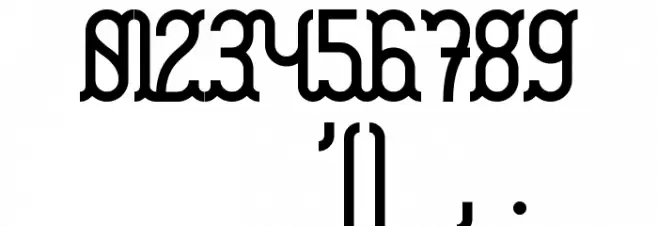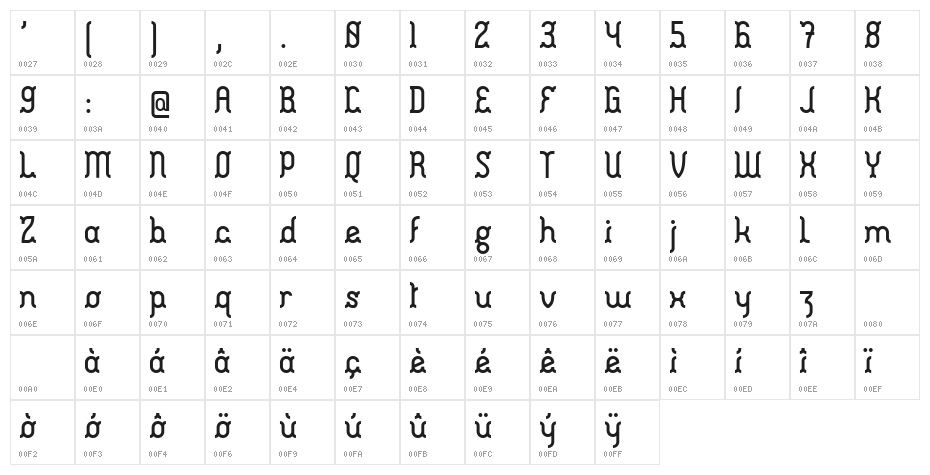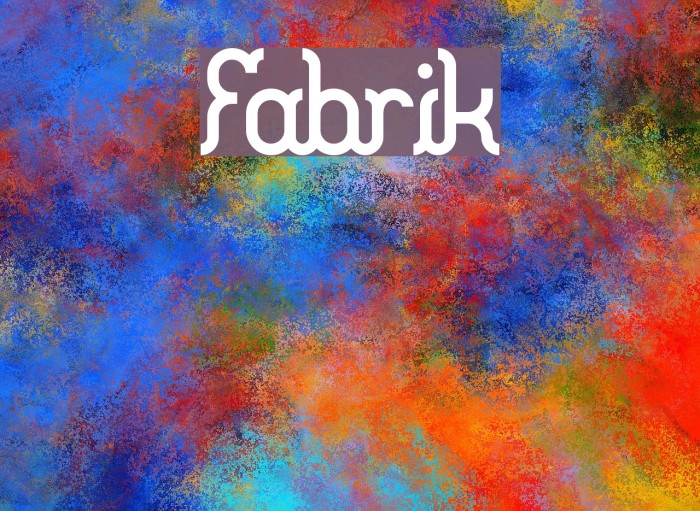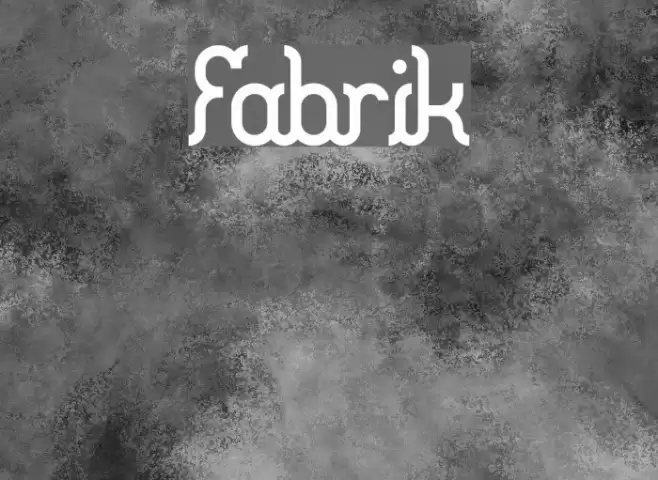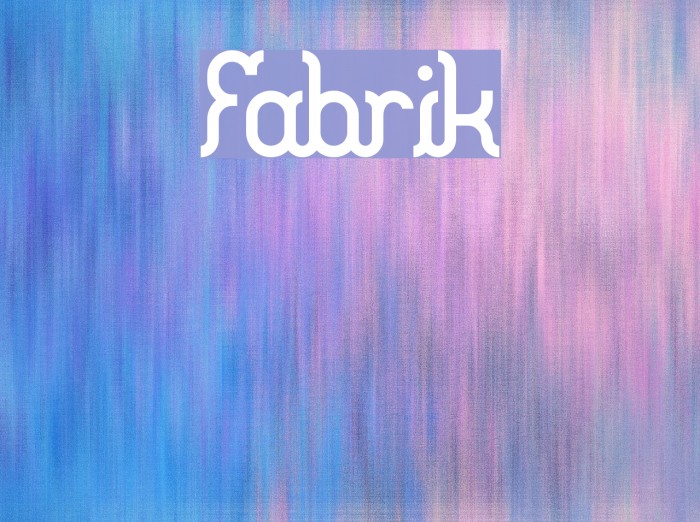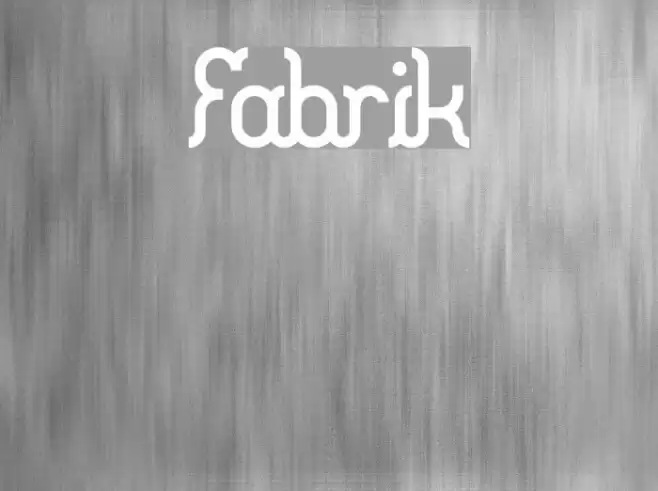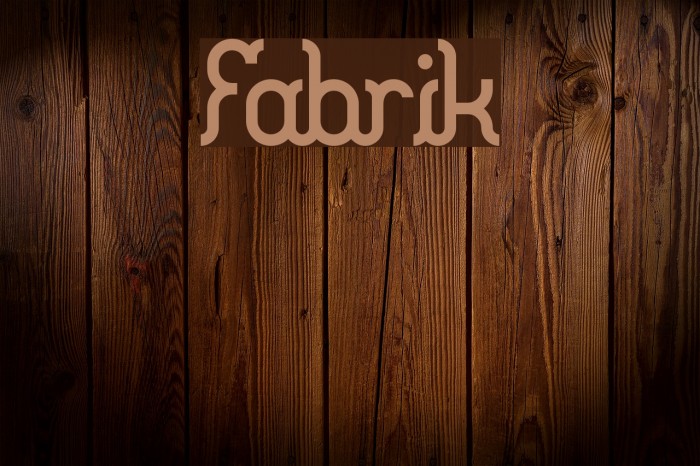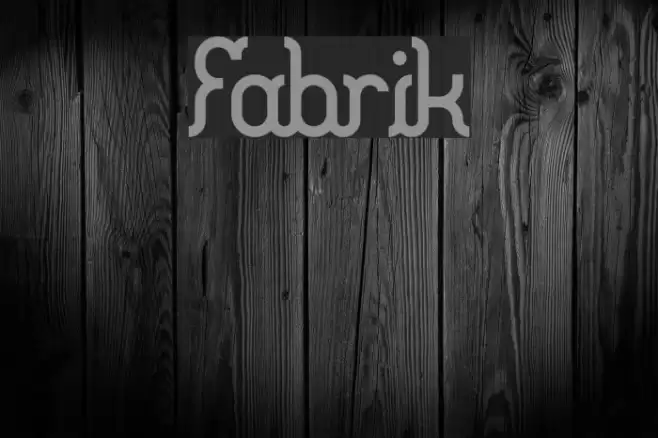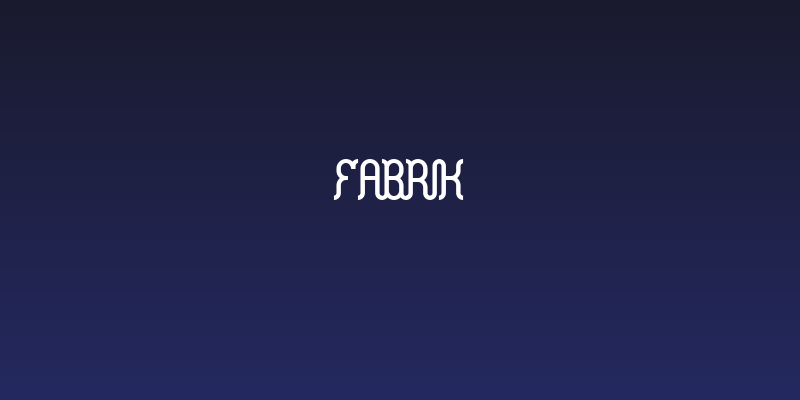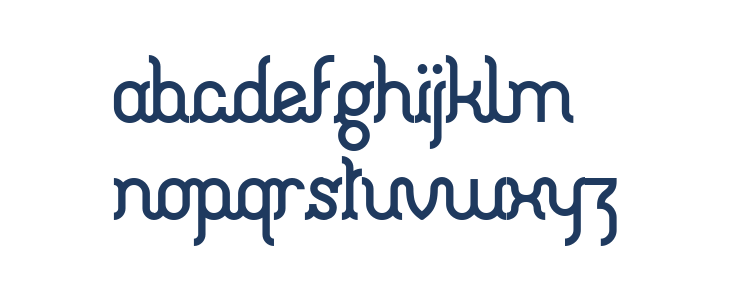
Fabrik Font
Fabrik Description
This font features a unique and modern design with a distinct geometric style. Each character is crafted with a continuous line that loops and curves, creating a sense of fluidity and motion. The uppercase letters are bold and striking, while the lowercase letters maintain a consistent flow, enhancing readability. The numbers and special characters follow the same design principles, ensuring a cohesive look across all text. This font is perfect for projects that require a contemporary and eye-catching aesthetic.
| Proposed Projects | Ideal for branding, posters, and digital media where a modern and distinctive look is desired. |